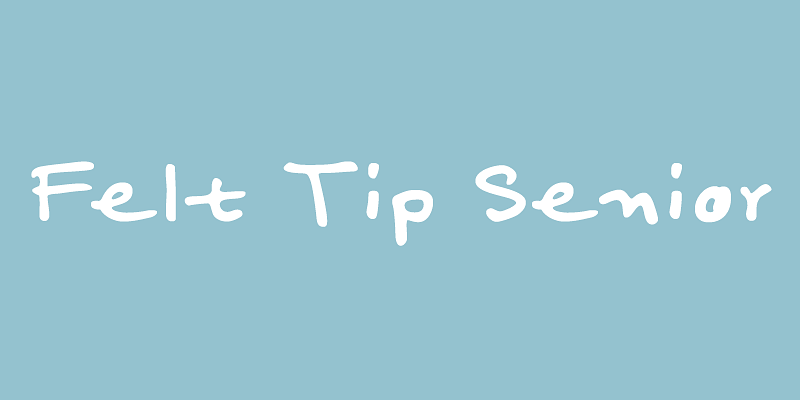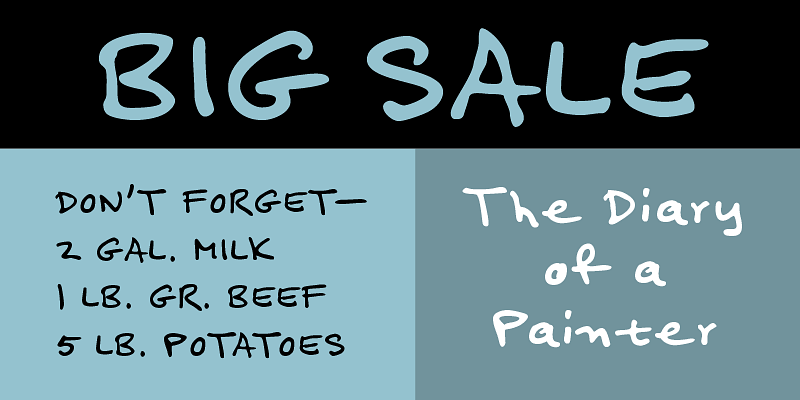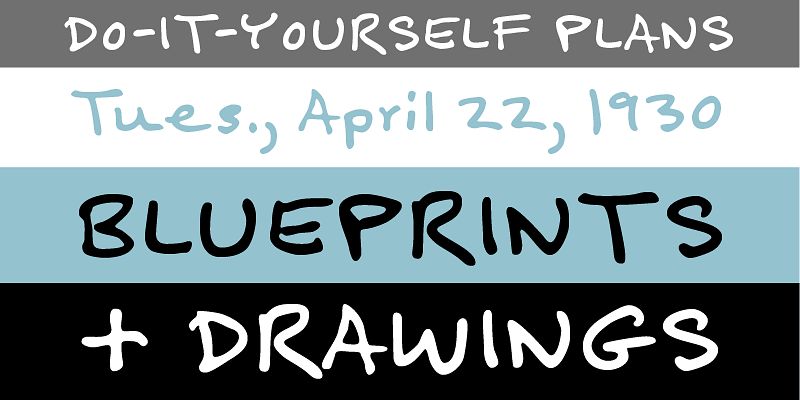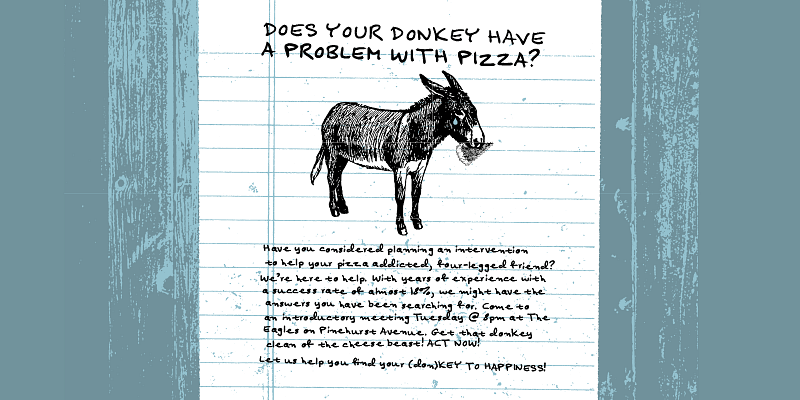
Felt Tip Senior (2000) is a facsimile of my dad’s handwriting, which of course had a big influence on my own handwriting (see my font Felt Tip Roman). He almost always writes in caps, so the lowercase has some surprising and idiosyncratic forms. I originally created this font as a gift to my dad in 1995. His name is Leroy so I called it “Leroy Lettering.” But since that’s a brand name of a lettering tool that some people still use, it could be confusing. I released it as Felt Tip Senior, with my dad’s permission.